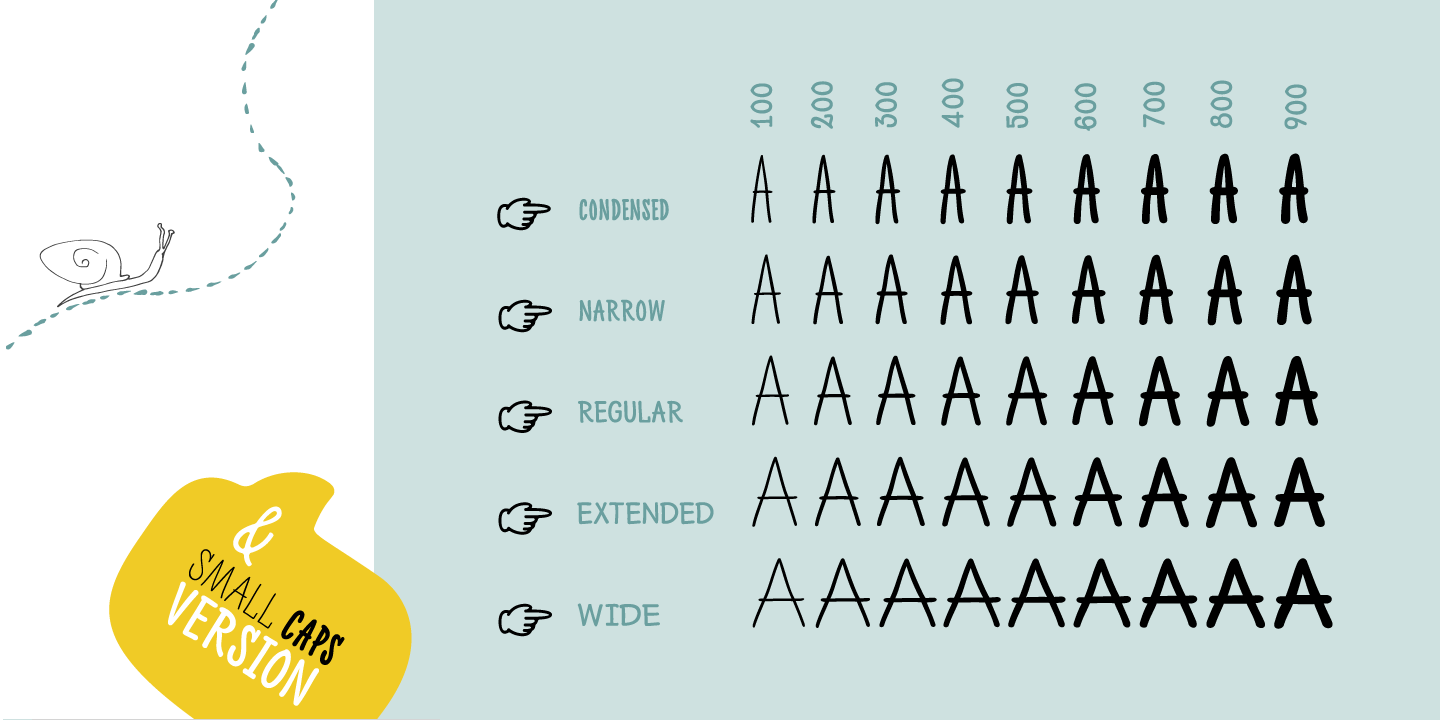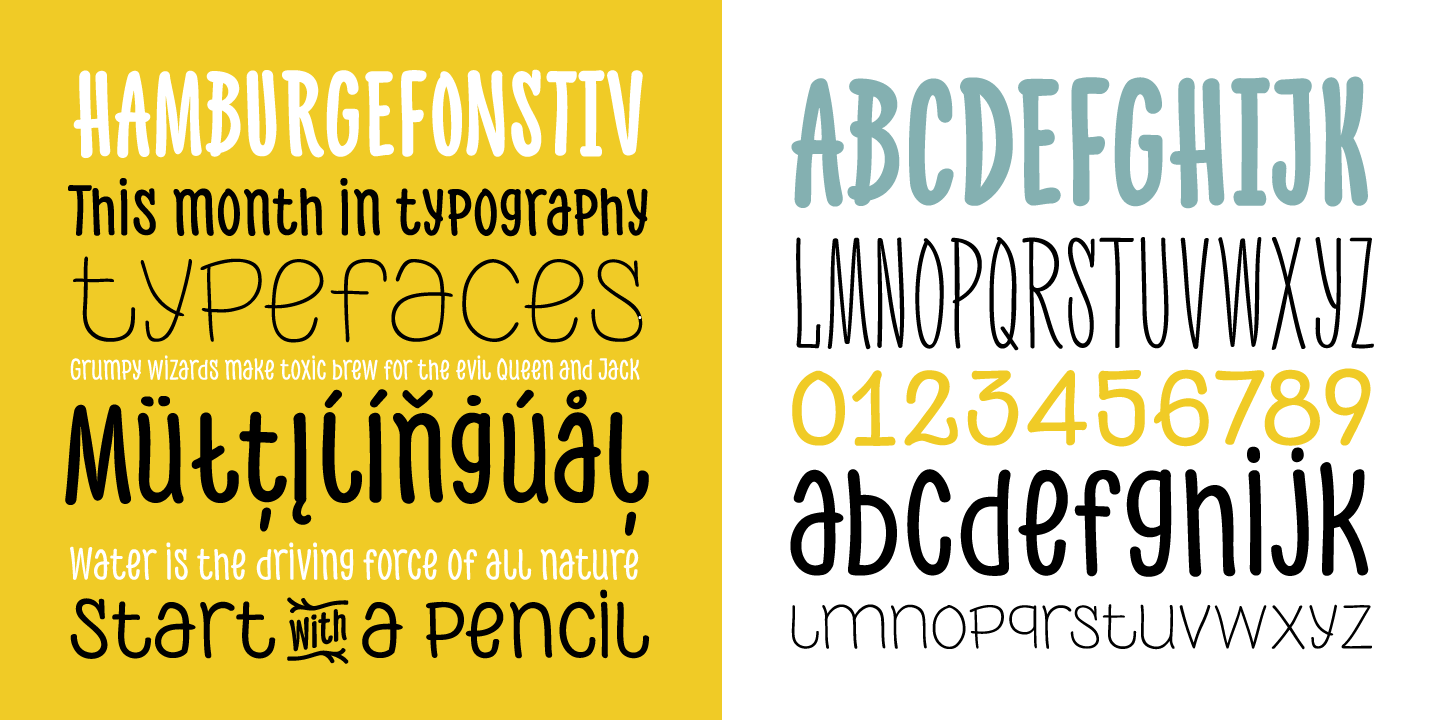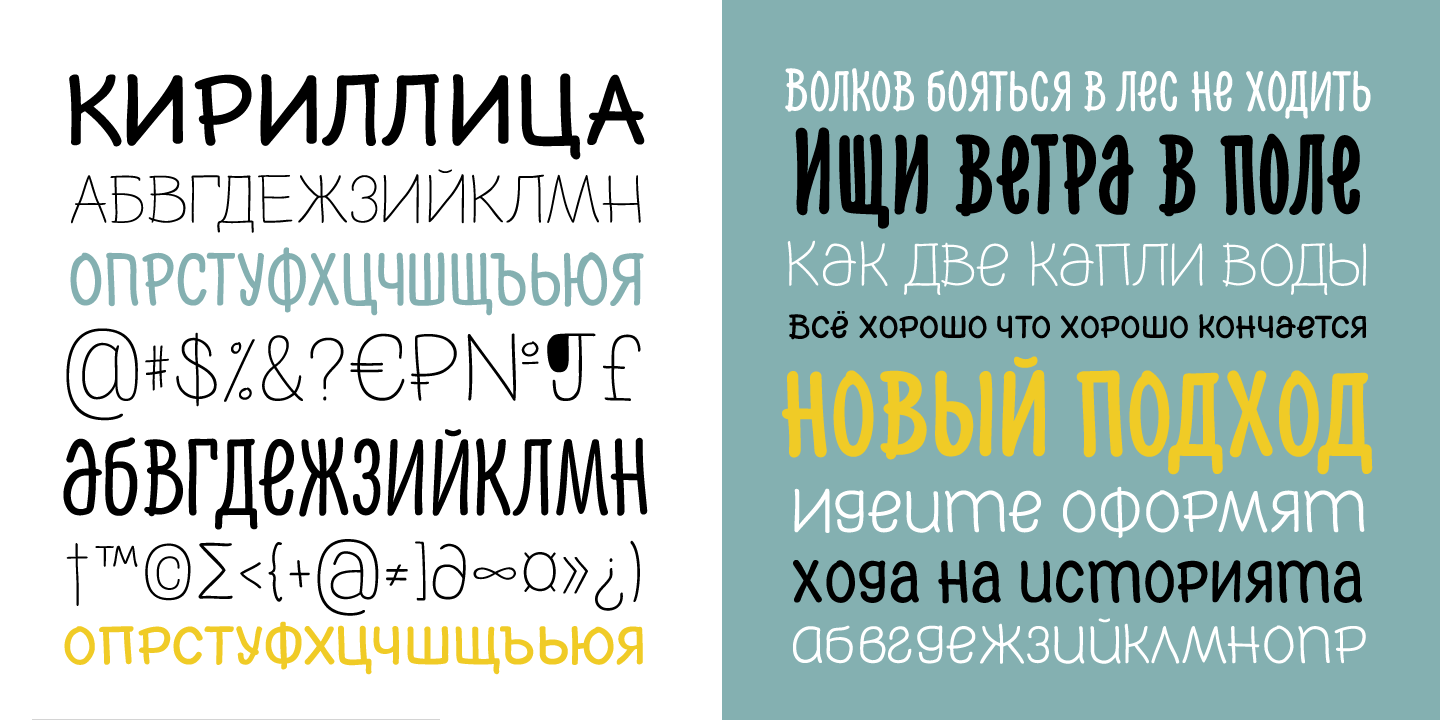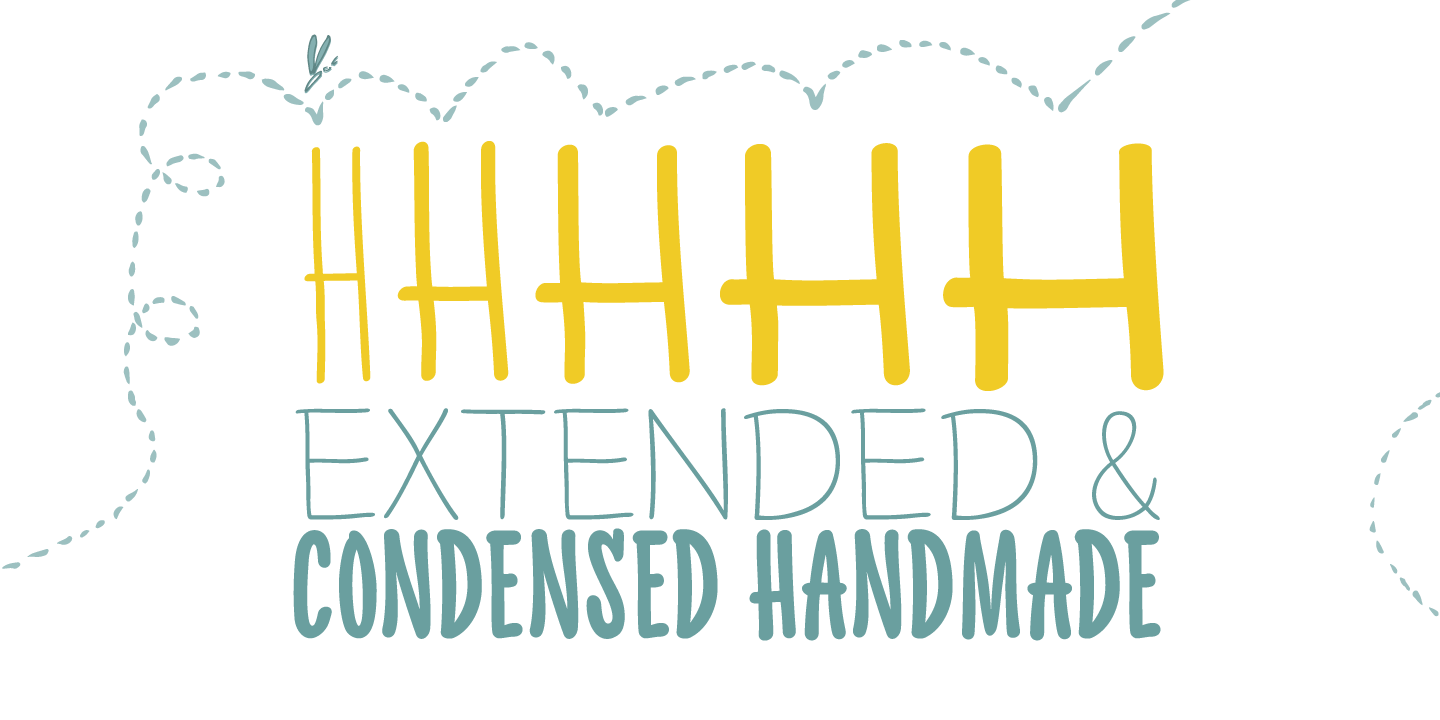
About the PH Font
About PH Font Family PH from Fontfabric Type Foundry is a multifaceted font system consisting of different font weights and type of condensation, Every one of these font weights contains a number of extension types – Condensed, Narrow, Regular, Extended and Wide, Along with all of this, you will also discover added groups of extras which could serve as a foundation or add that extra “cherry on the cake” to each unique design